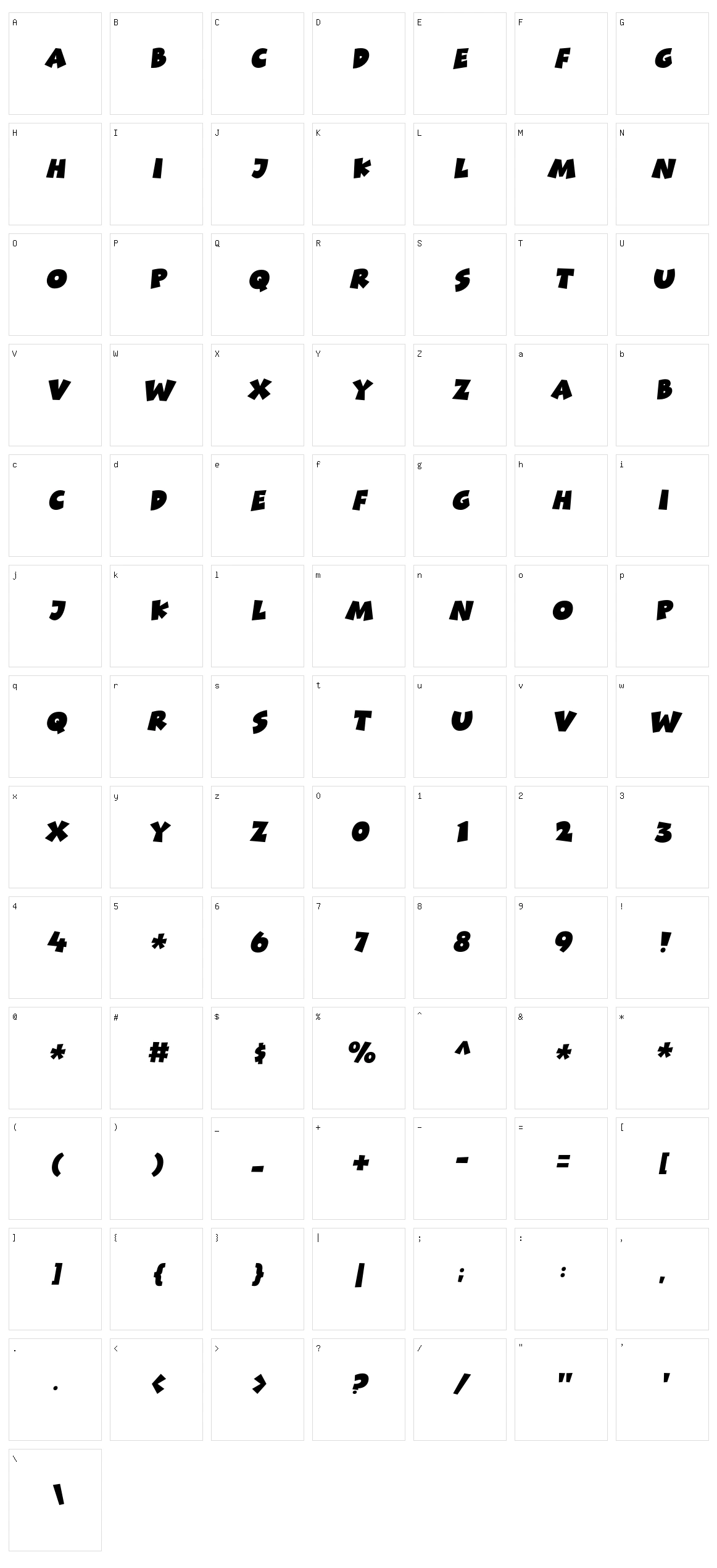
The free font Fictional Powers is carefully designed by Pizzadude, showcasing a thoughtful balance of creativity and usability and falls under the Cartoon font style. When you download the ZIP file, it contains only 7.9 KB of font files, making it lightweight and quick to download. Please review the license details below to understand permitted usage and distribution rights. If license information is not available, we recommend using this font for personal projects only or contacting the author directly for commercial usage permissions.